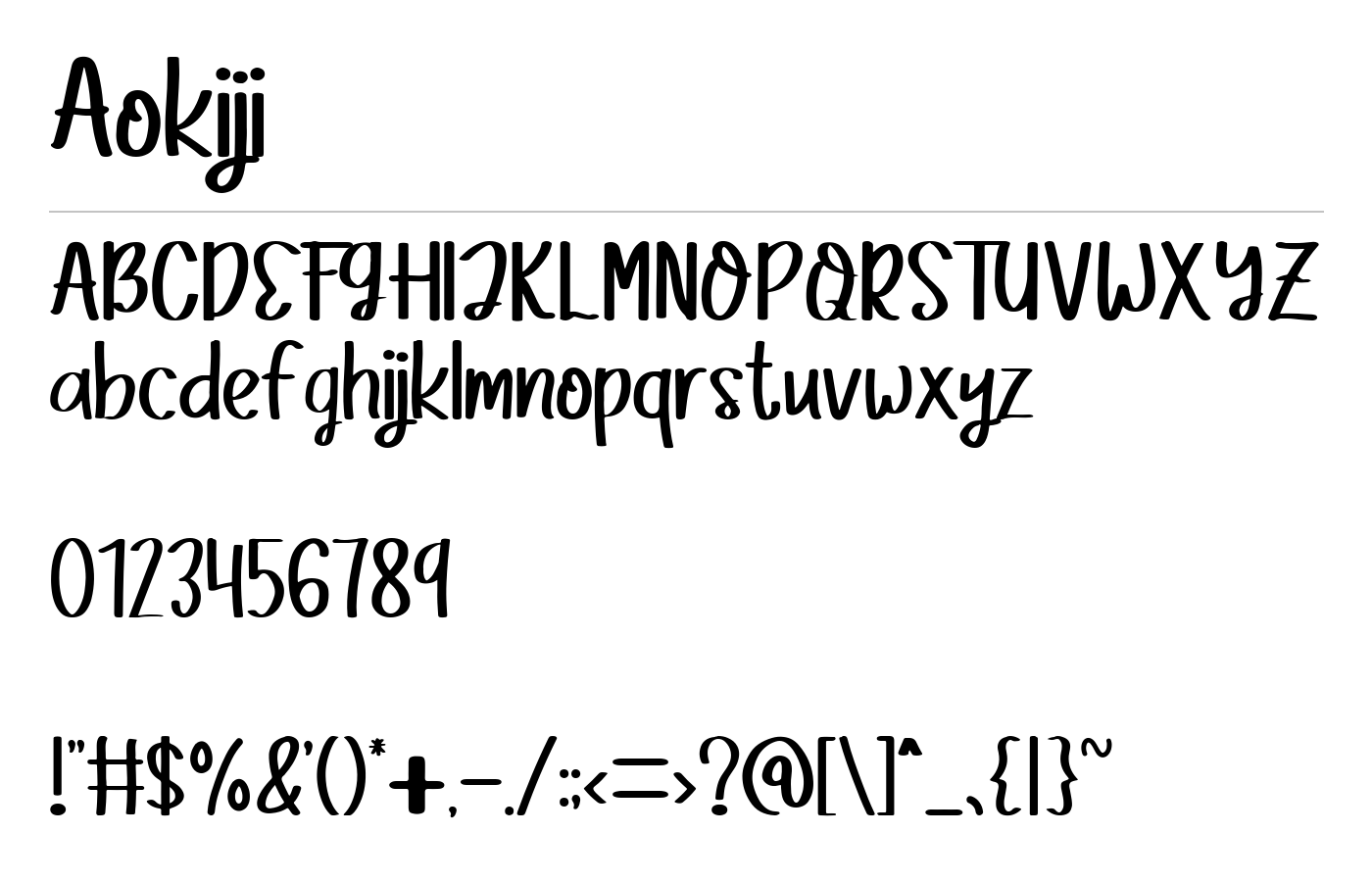
Aokiji is a playful and casual handwritten sans serif font with a charming, slightly quirky personality. Its uneven strokes and varying letter heights give it an organic, friendly feel, making it ideal for creative projects that want to convey warmth and approachability. This font works well for informal branding, children’s books, posters, and designs that benefit from a natural, whimsical touch.
Aokiji Font